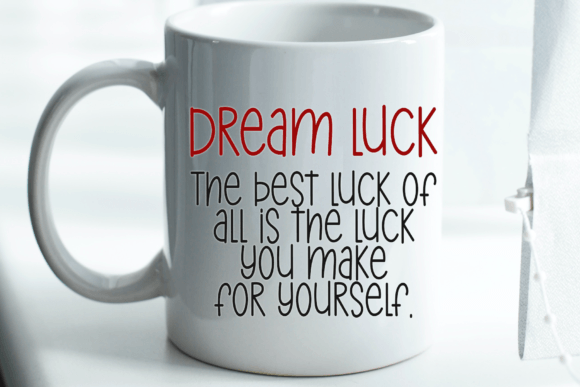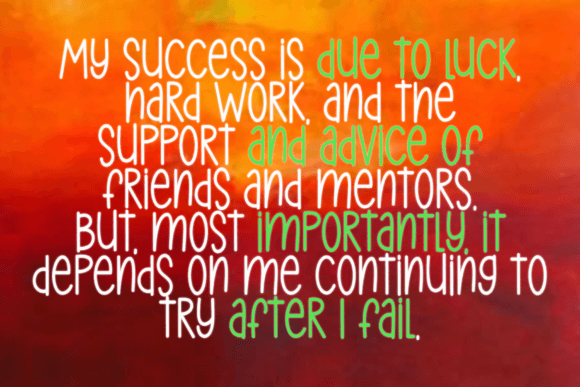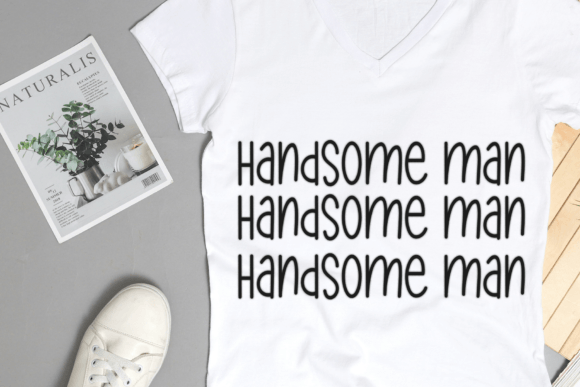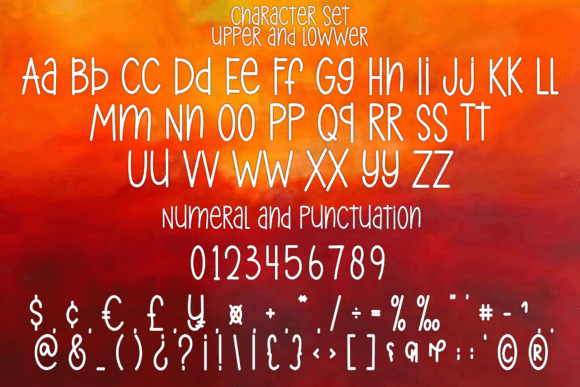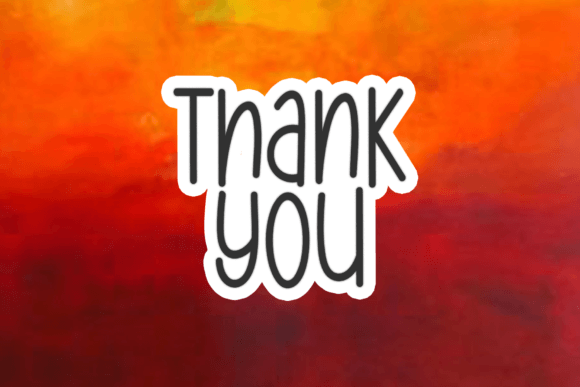
Introducing Best Wishes Font: The Perfect Playful Typeface for Cheerful Designs
Are you a designer or crafter looking for a font that can add a touch of playfulness and positivity to your designs? Look no further than Best Wishes Font, a delightful sans-serif handwritten typeface that’s perfect for creating uplifting wall art, posters, and prints.
What Makes Best Wishes Font So Special?
Best Wishes Font is a unique and cheerful typeface that’s designed to bring a smile to your face. Its playful design features rounded edges, subtle imperfections, and a carefree feel that’s sure to brighten up any space. Whether you’re creating a motivational poster, a fun greeting card, or a colorful wall art piece, Best Wishes Font is the perfect choice.
Key Features of Best Wishes Font
• Playful sans-serif design: Best Wishes Font features a modern sans-serif design with a playful twist, making it perfect for creating fun and uplifting designs.
• Handwritten feel: The font has a friendly, handwritten feel that’s sure to add a personal touch to your designs.
• Rounded edges: The rounded edges of Best Wishes Font give it a soft and approachable feel that’s perfect for creating cheerful designs.
• Subtle imperfections: The font features subtle imperfections that add to its handmade feel and make it even more charming.
Best Wishes Font is a versatile typeface that’s perfect for designers and crafters of all levels. Whether you’re creating digital designs or handmade crafts, this font is sure to inspire you to create something beautiful and uplifting.
Ideas for Using Best Wishes Font
• Wall art: Create a motivational wall art piece using Best Wishes Font and add a positive message to any room.
• Posters: Design a fun and colorful poster using Best Wishes Font and share it on social media or display it in a public space.
• Prints: Create a set of uplifting prints using Best Wishes Font and sell them in your online store or at a local market.
• Greeting cards: Design a set of fun and cheerful greeting cards using Best Wishes Font and send them to friends and family.
Tips for Using Best Wishes Font
• Experiment with colors: Best Wishes Font looks great in bright and bold colors, so don’t be afraid to experiment and find the perfect color combination for your design.
• Mix and match: Combine Best Wishes Font with other fonts to create a unique and eye-catching design.
• Keep it simple: Don’t overcomplicate your design – keep it simple and let the playful design of Best Wishes Font shine through.
Best Wishes Font is a unique and playful typeface that’s perfect for designers and crafters who want to add a touch of positivity and cheer to their designs. With its sans-serif design, handwritten feel, and rounded edges, this font is sure to bring a smile to your face and inspire you to create something beautiful. So why wait? Download Best Wishes Font today and start creating your own cheerful and uplifting designs!